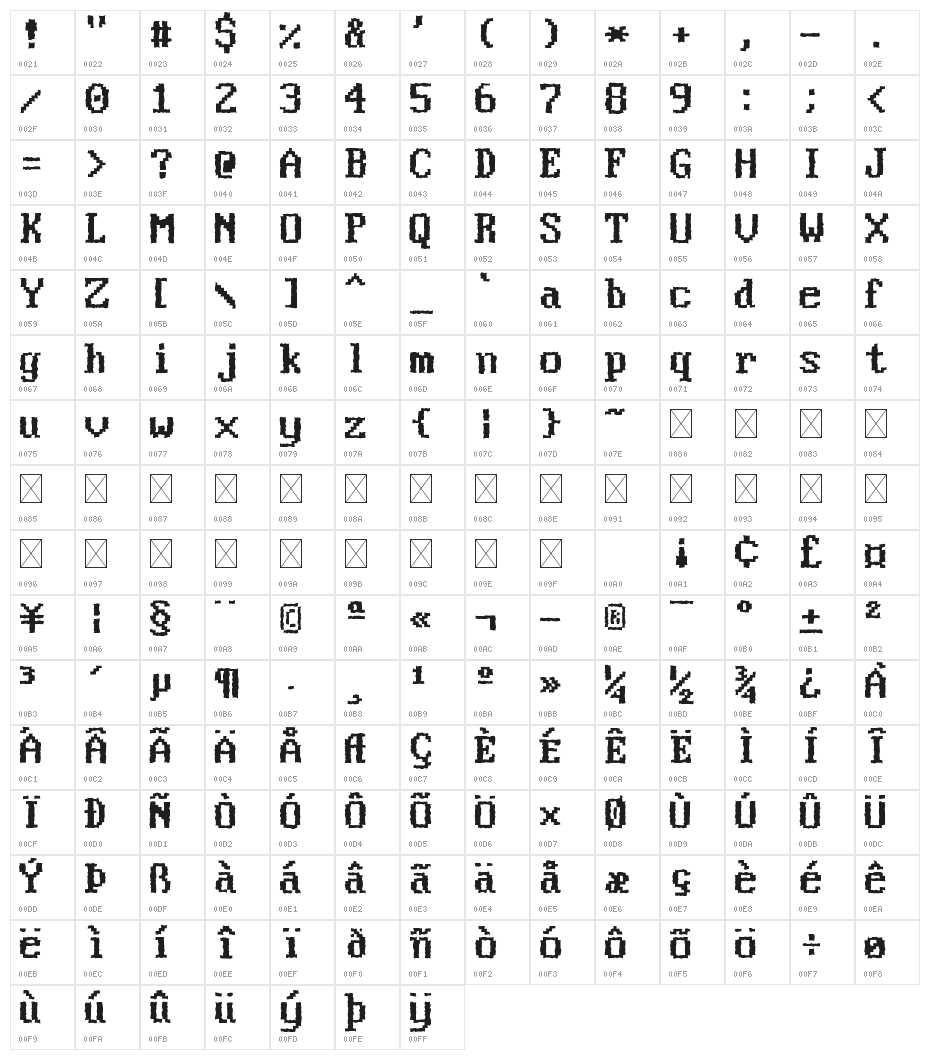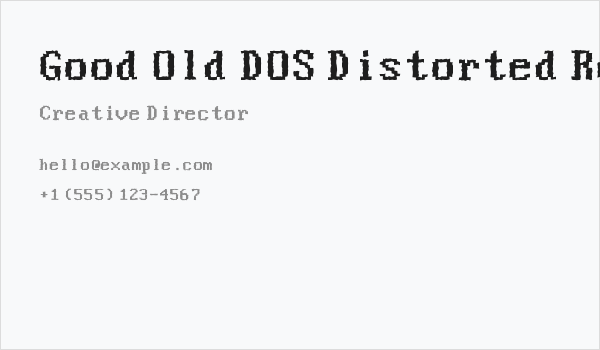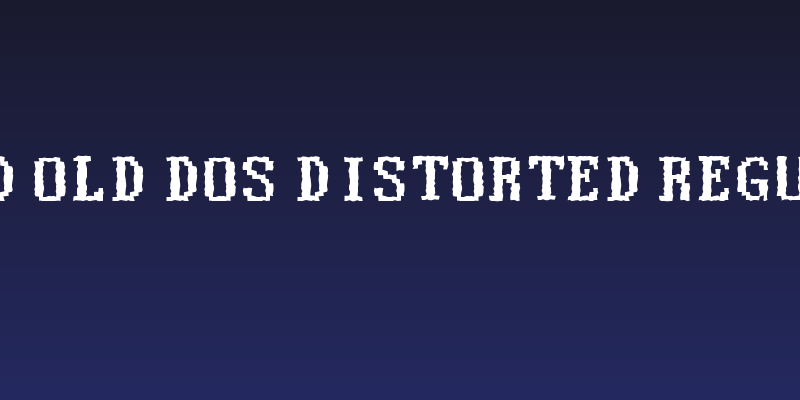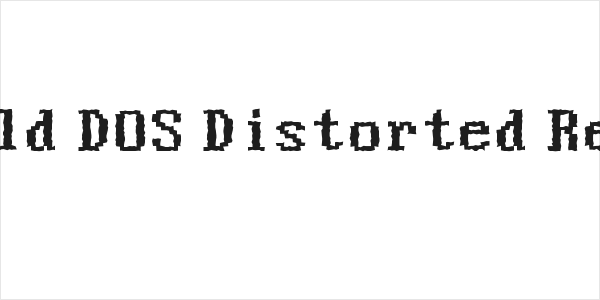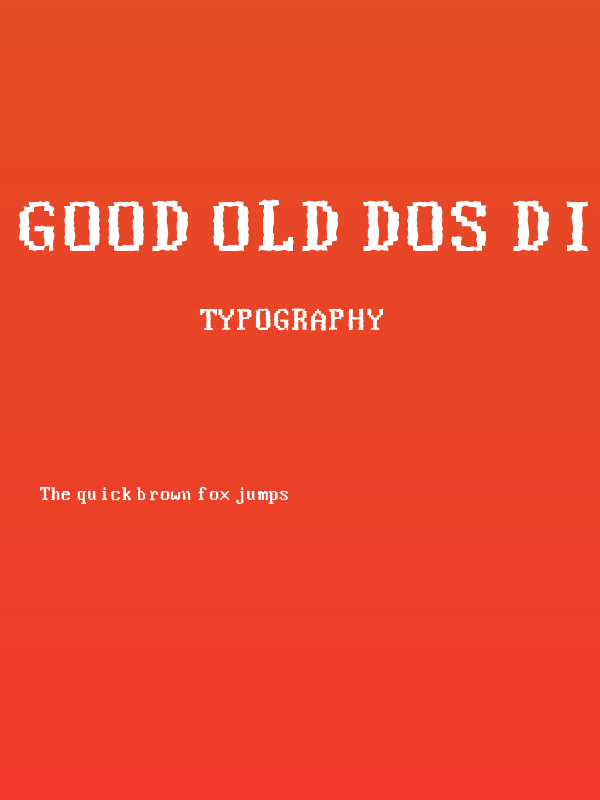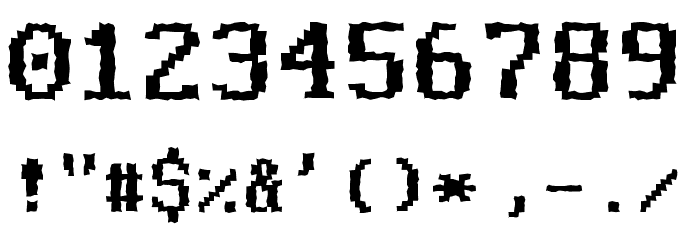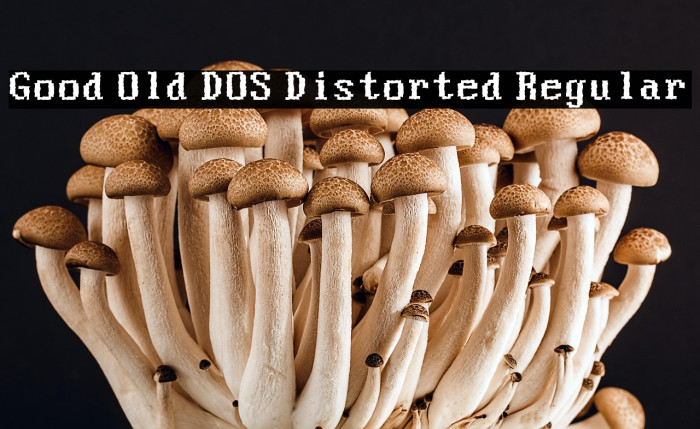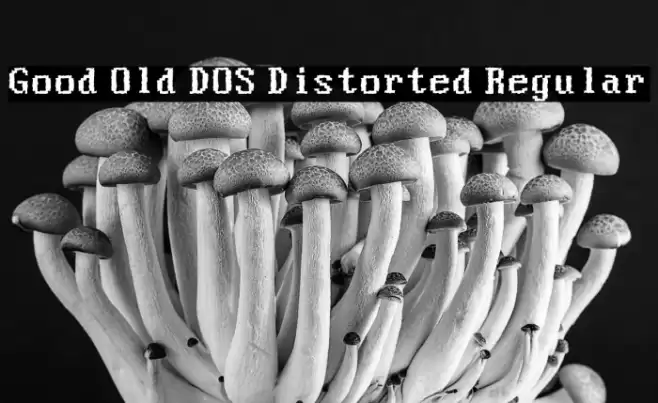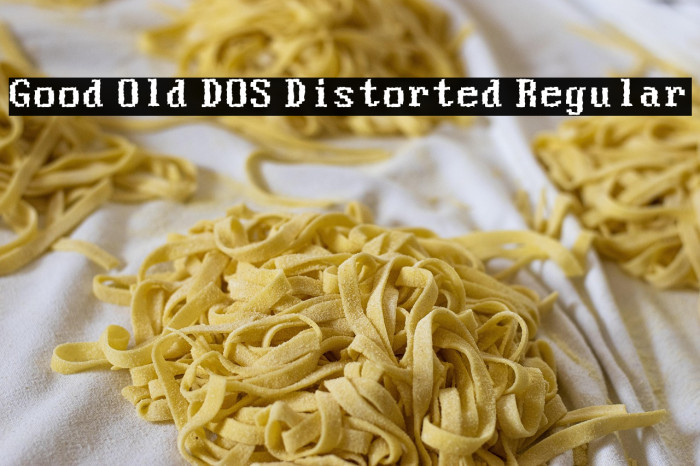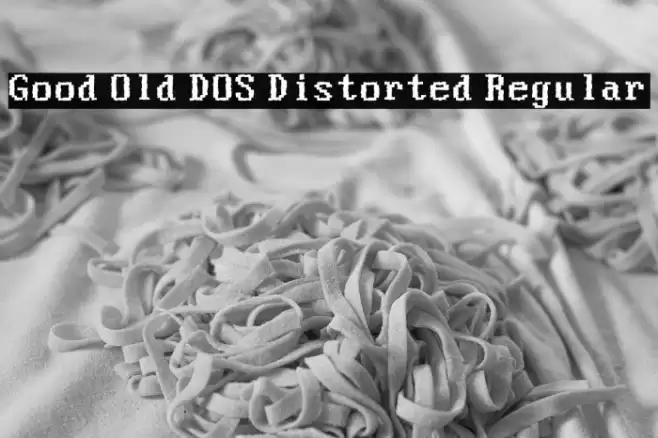
Good Old DOS Distorted Regular Font
| Projetos propostos | Ideal for projects that aim to evoke nostalgia for vintage computing, such as retro-themed video games, posters, or digital art. It could also be used for branding that seeks a unique, tech-inspired look. |